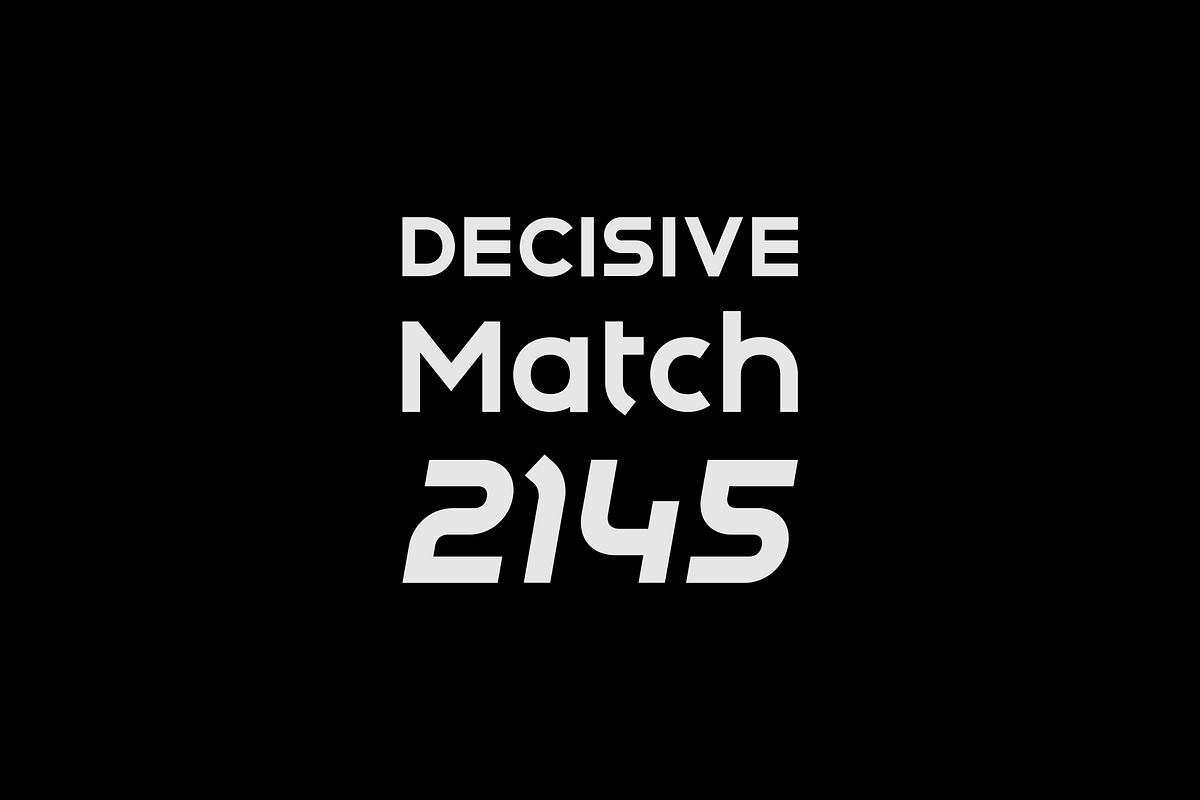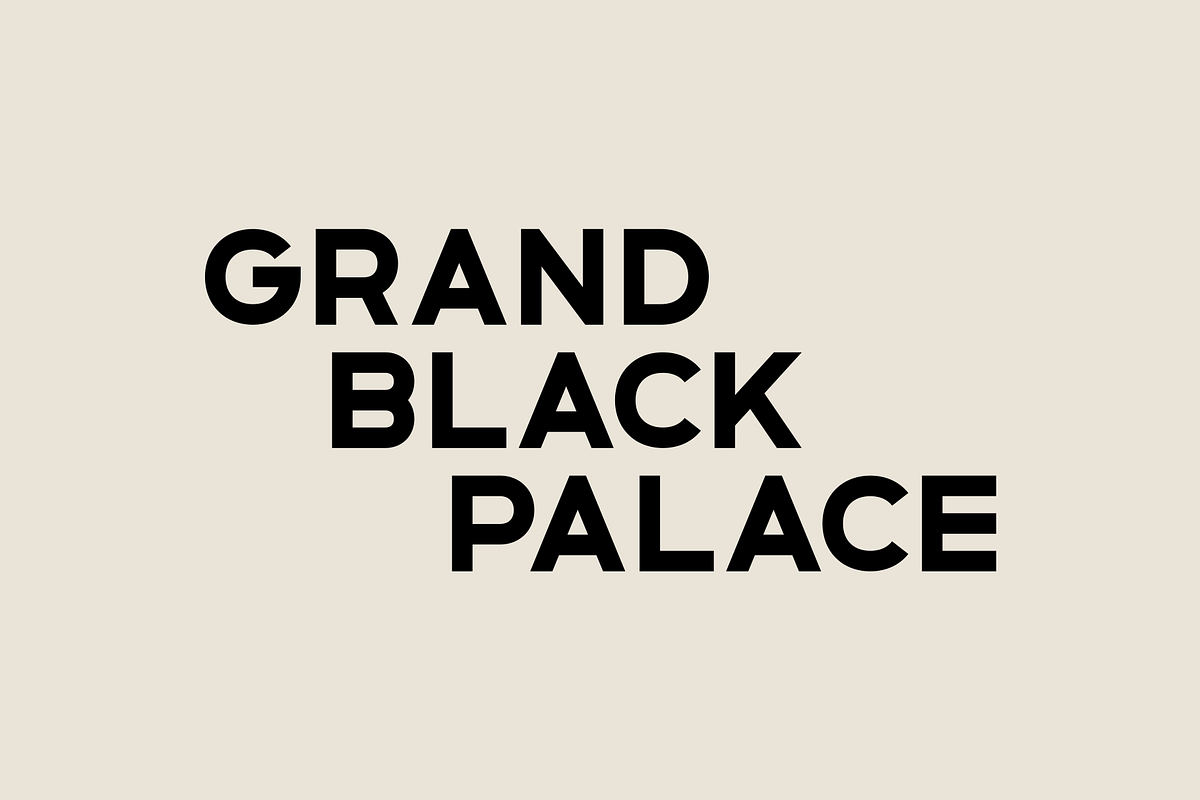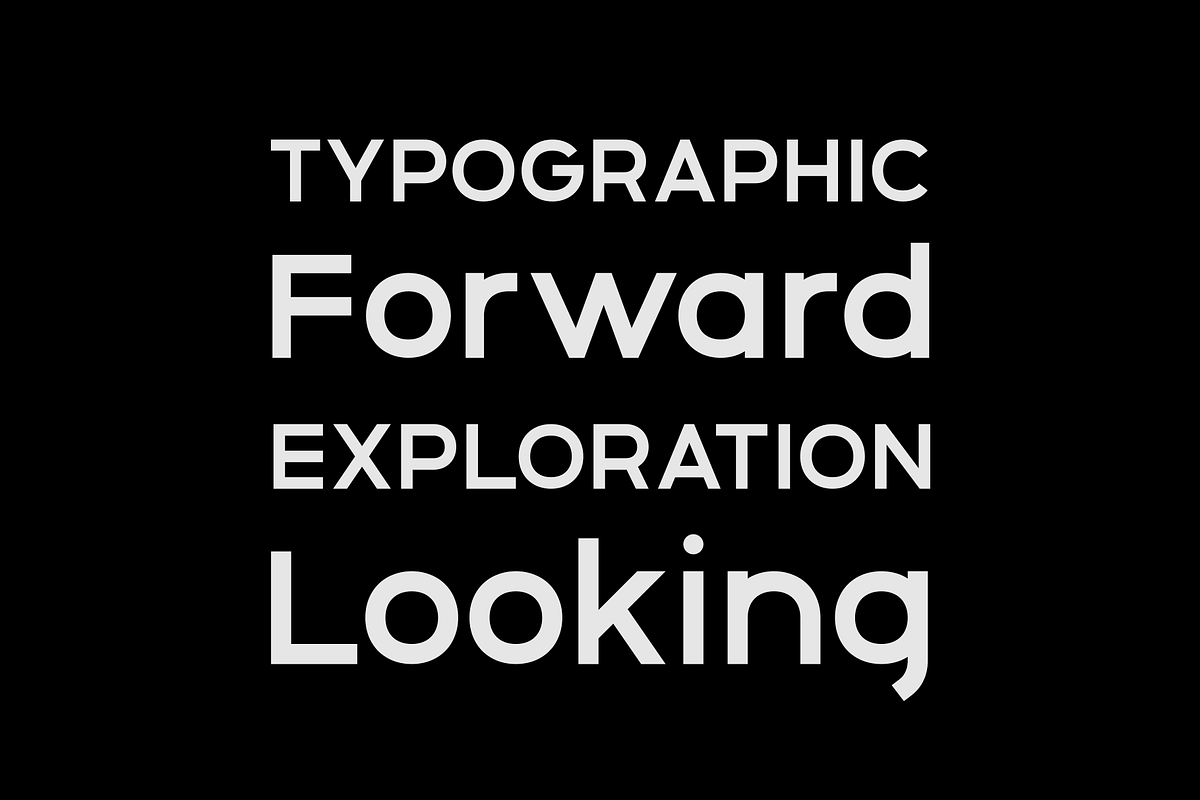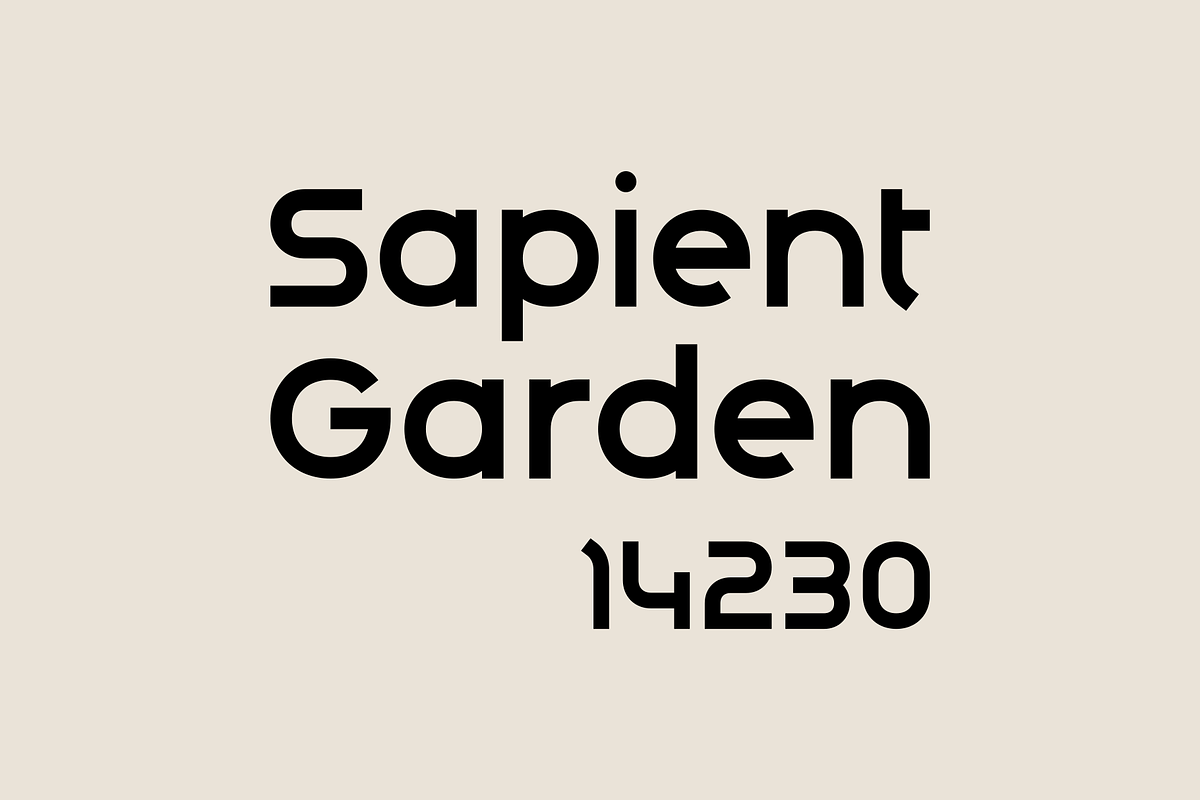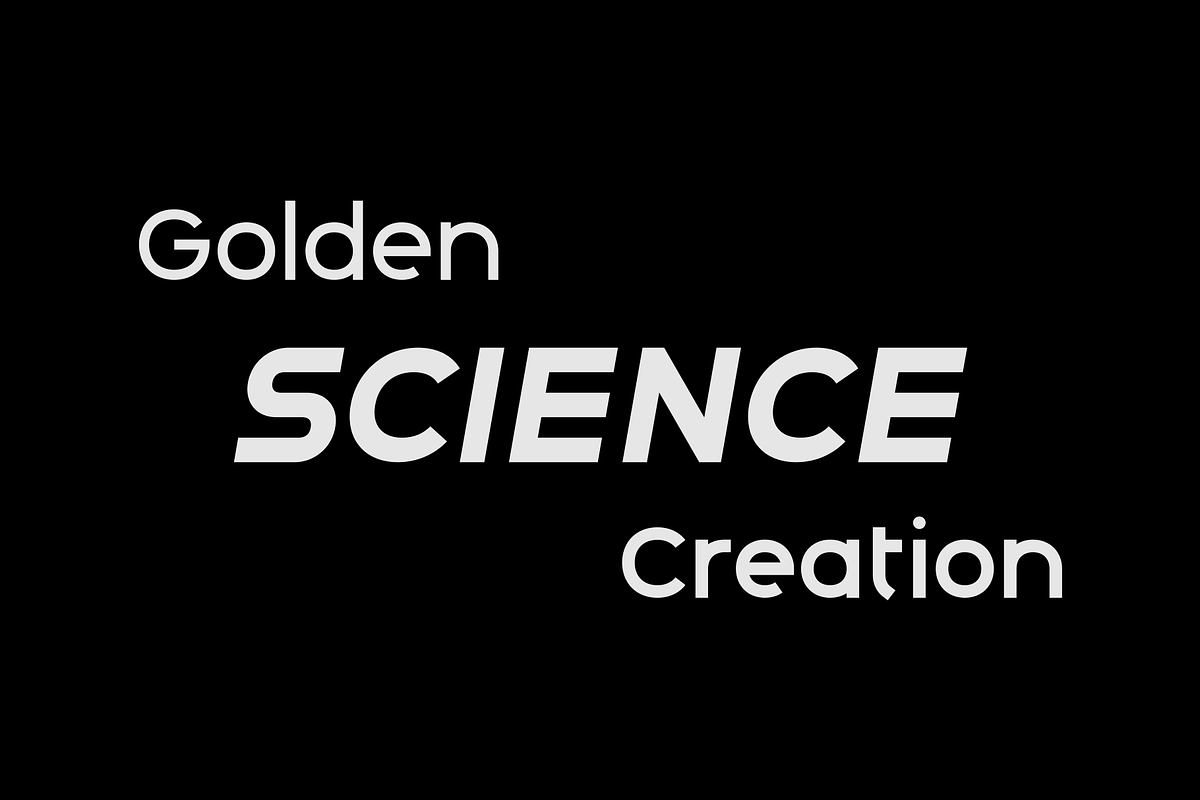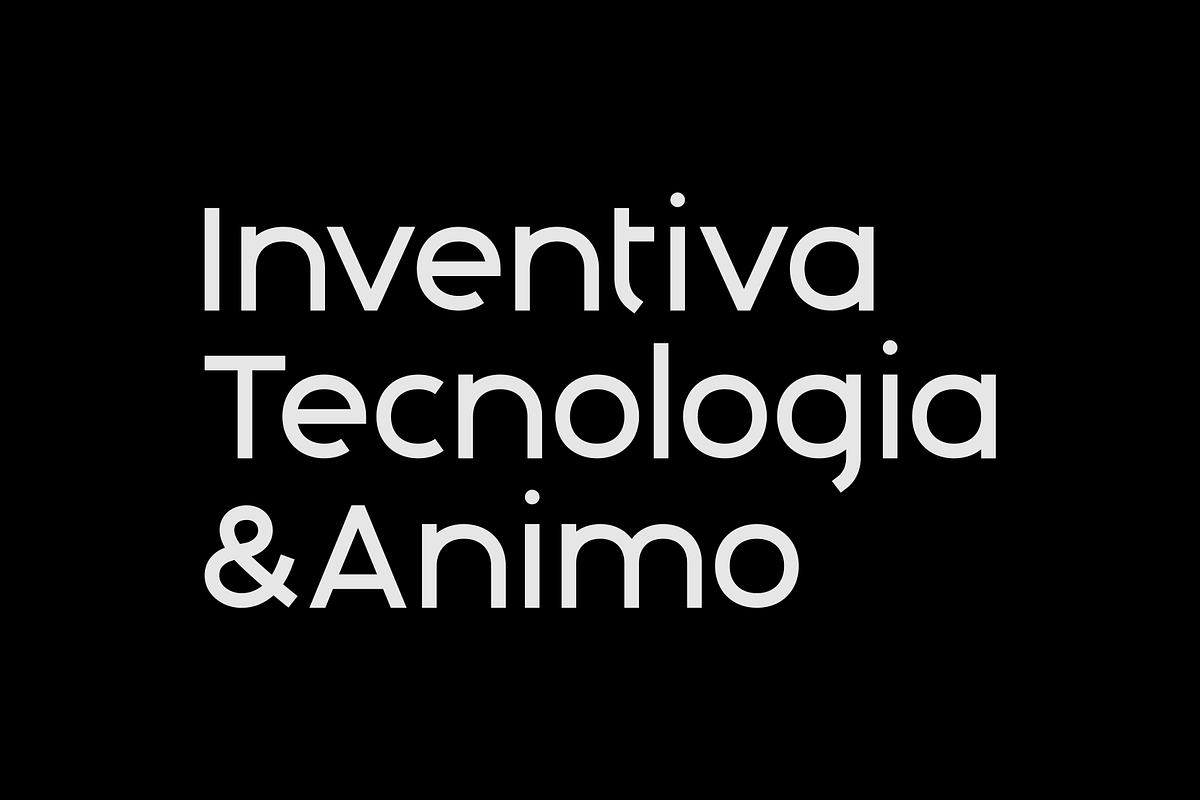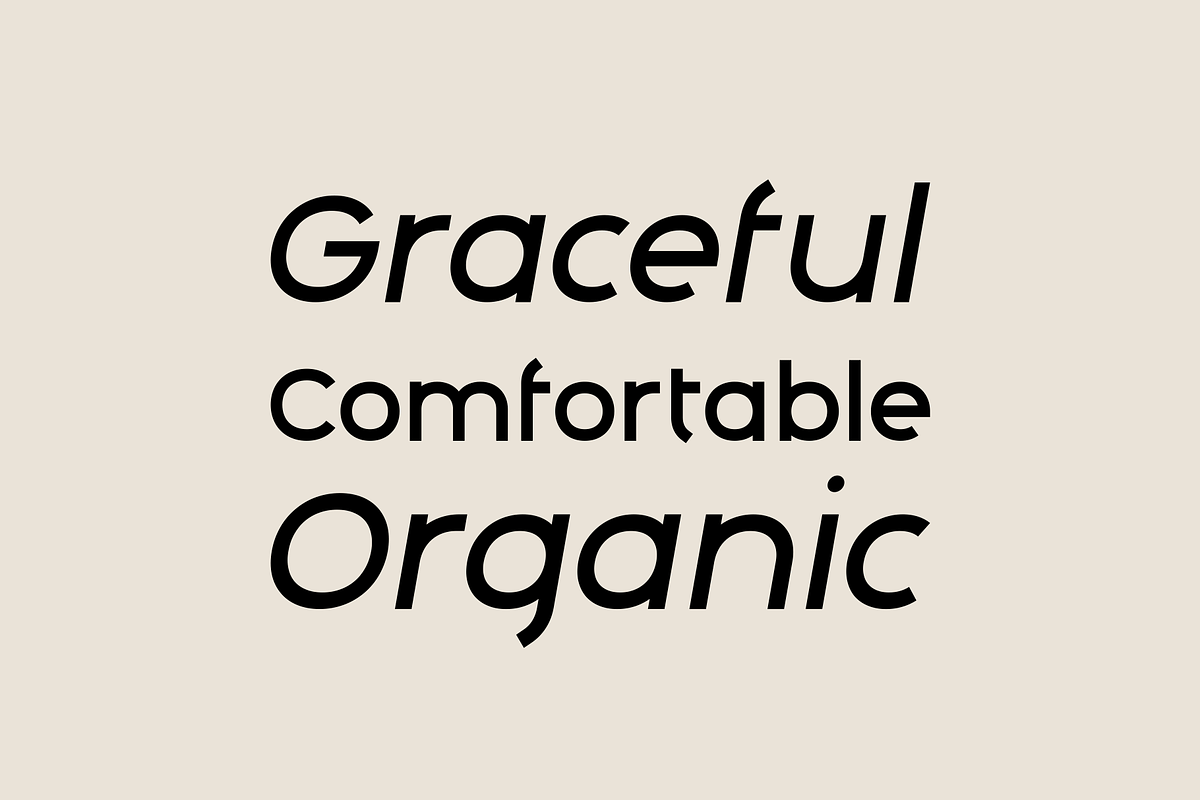
Adita - Font Family
Adita is a font family evolved from the fundamentals.
Adita - Font Family by Stefano Giliberti fits naturally into Branding, posters, packaging, typography.